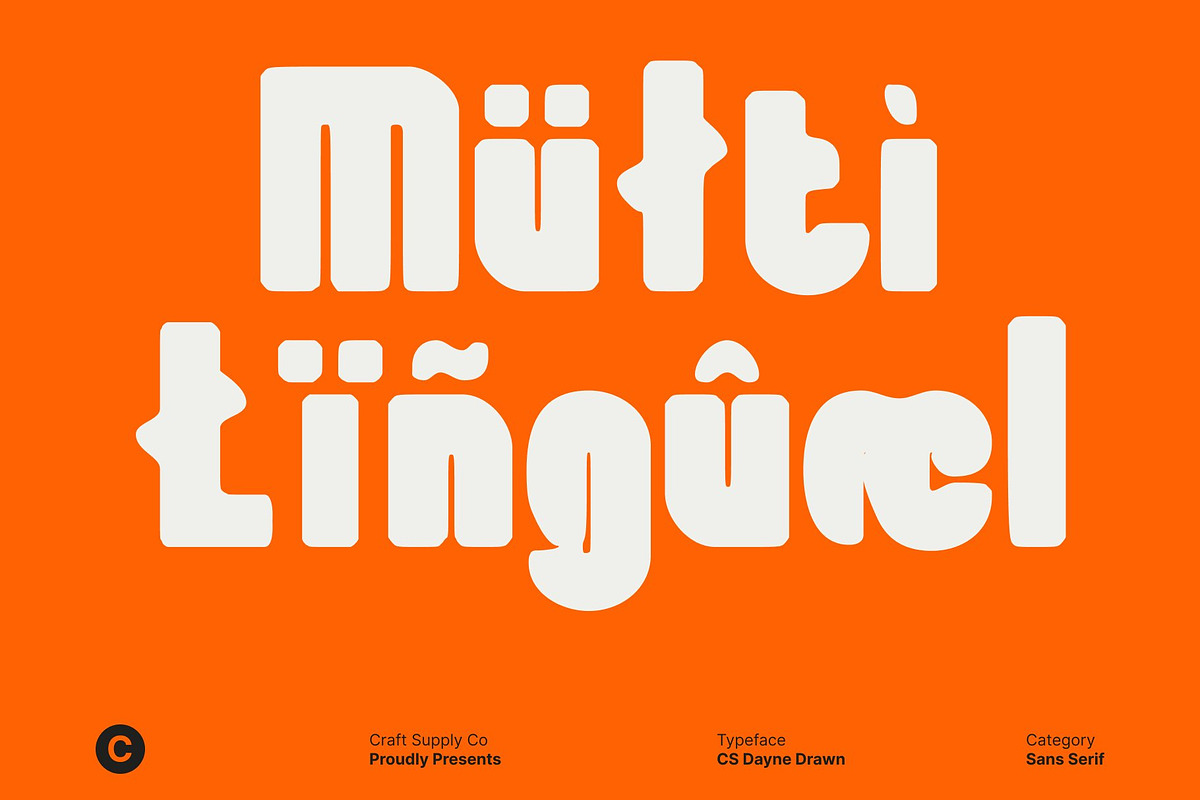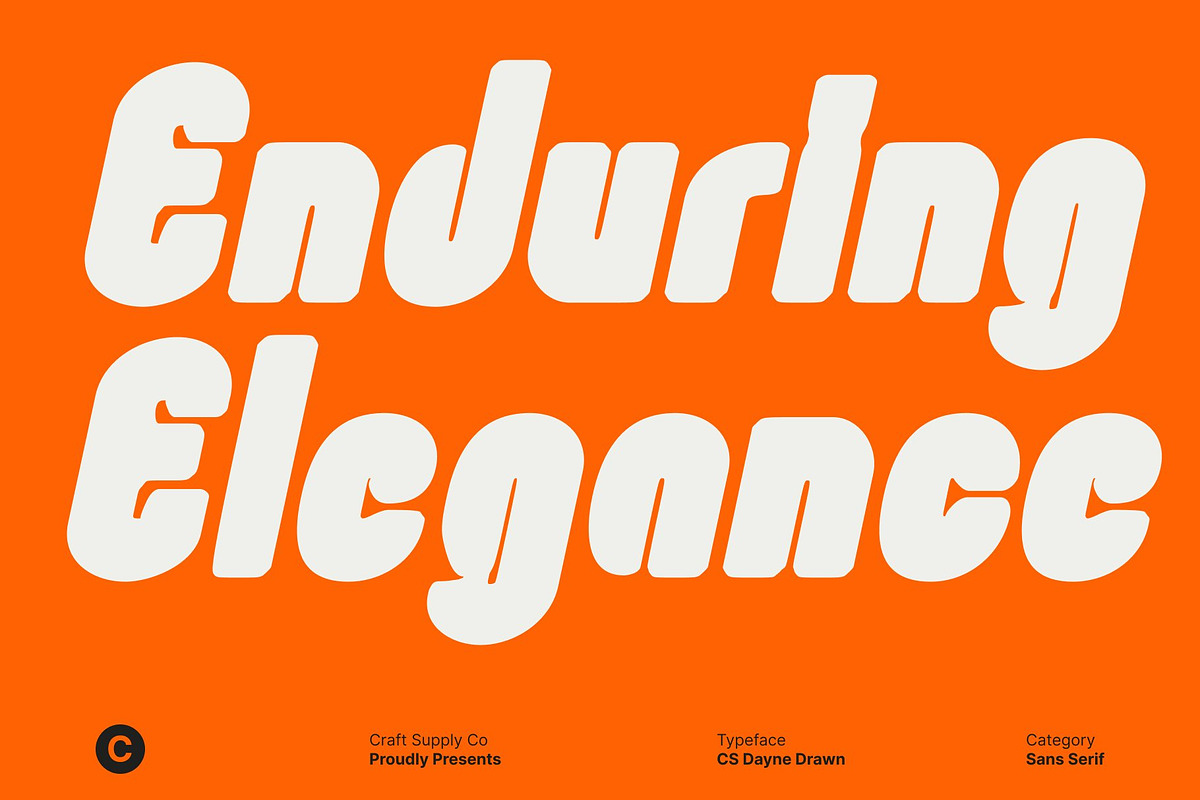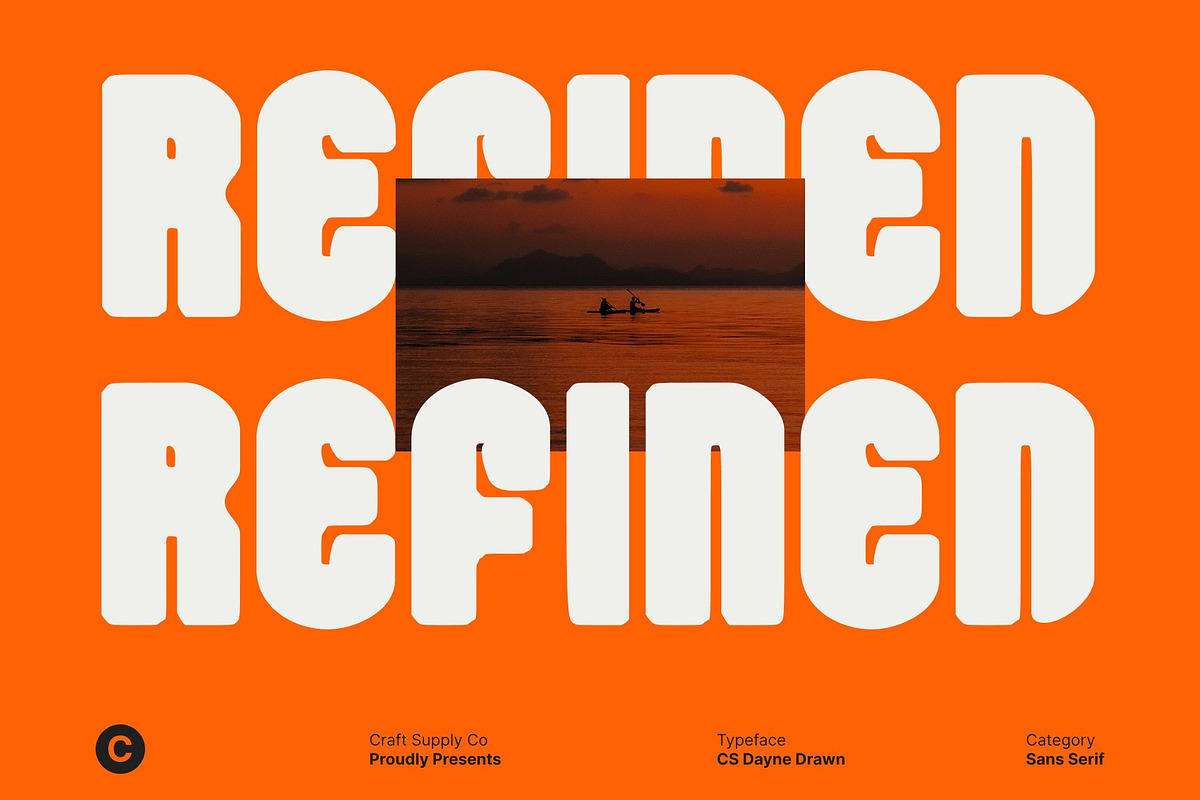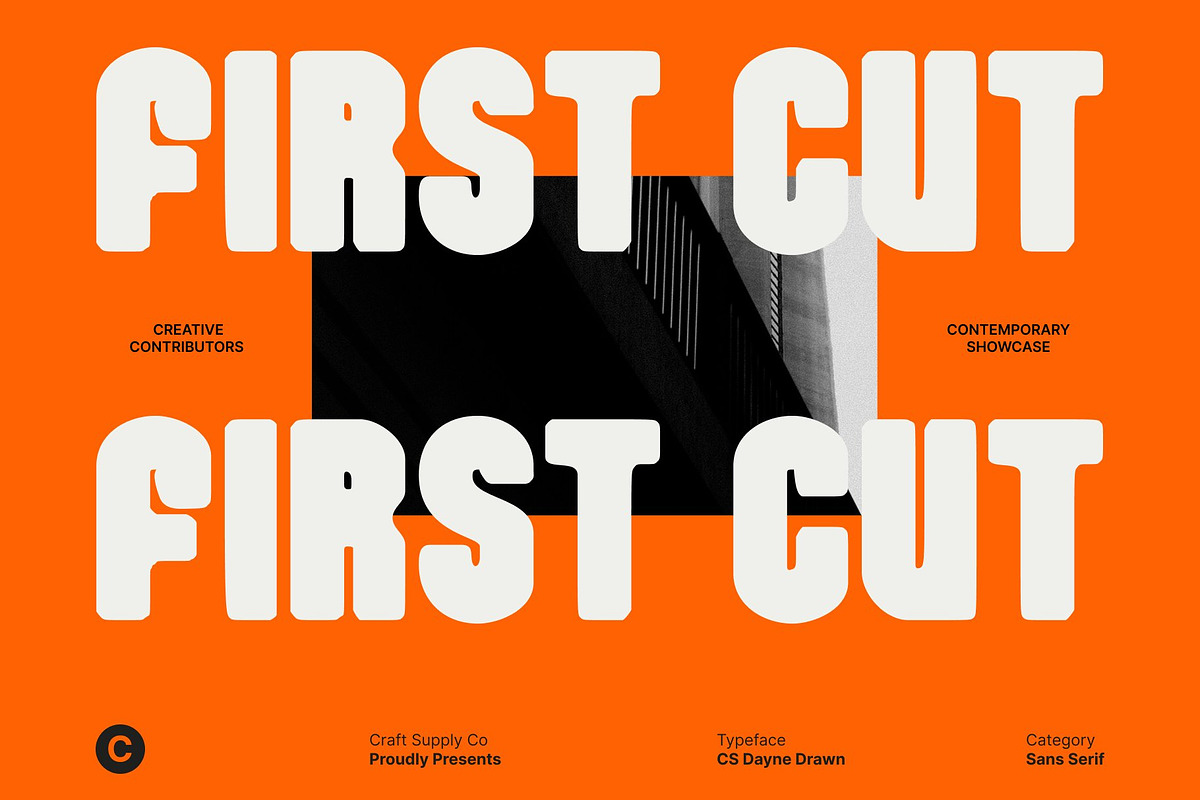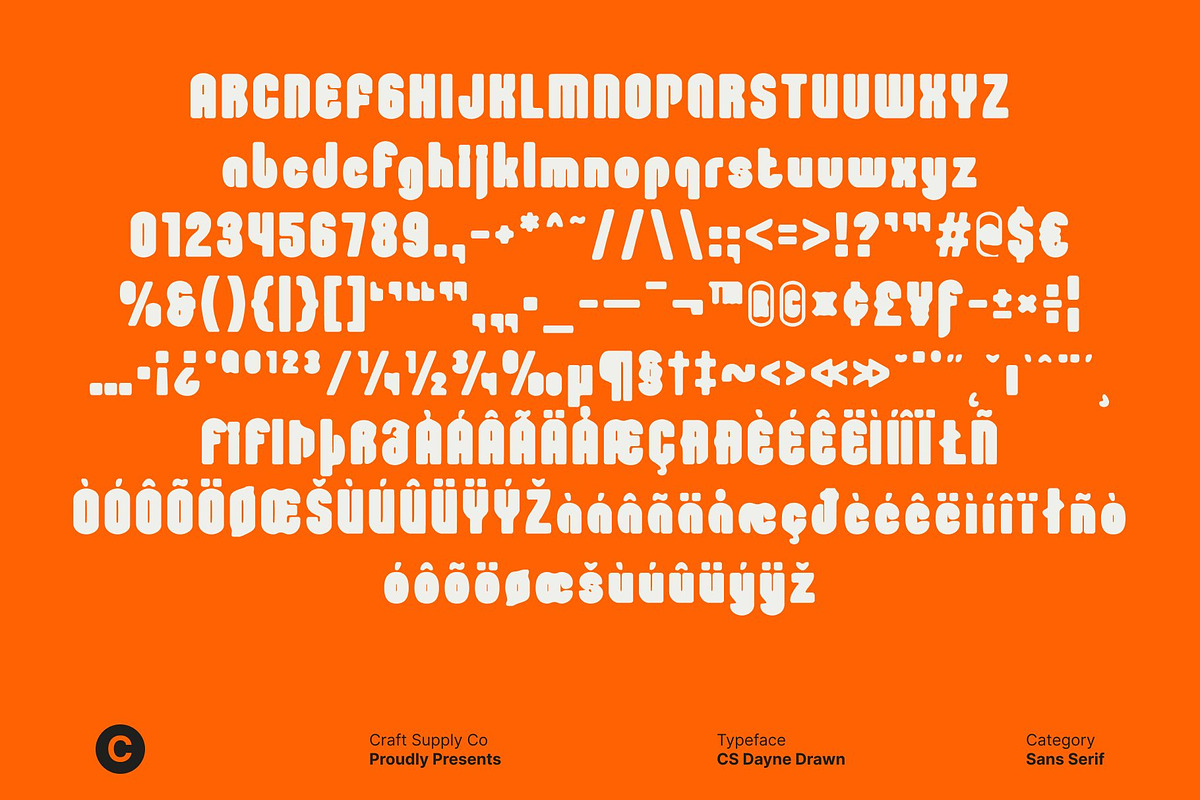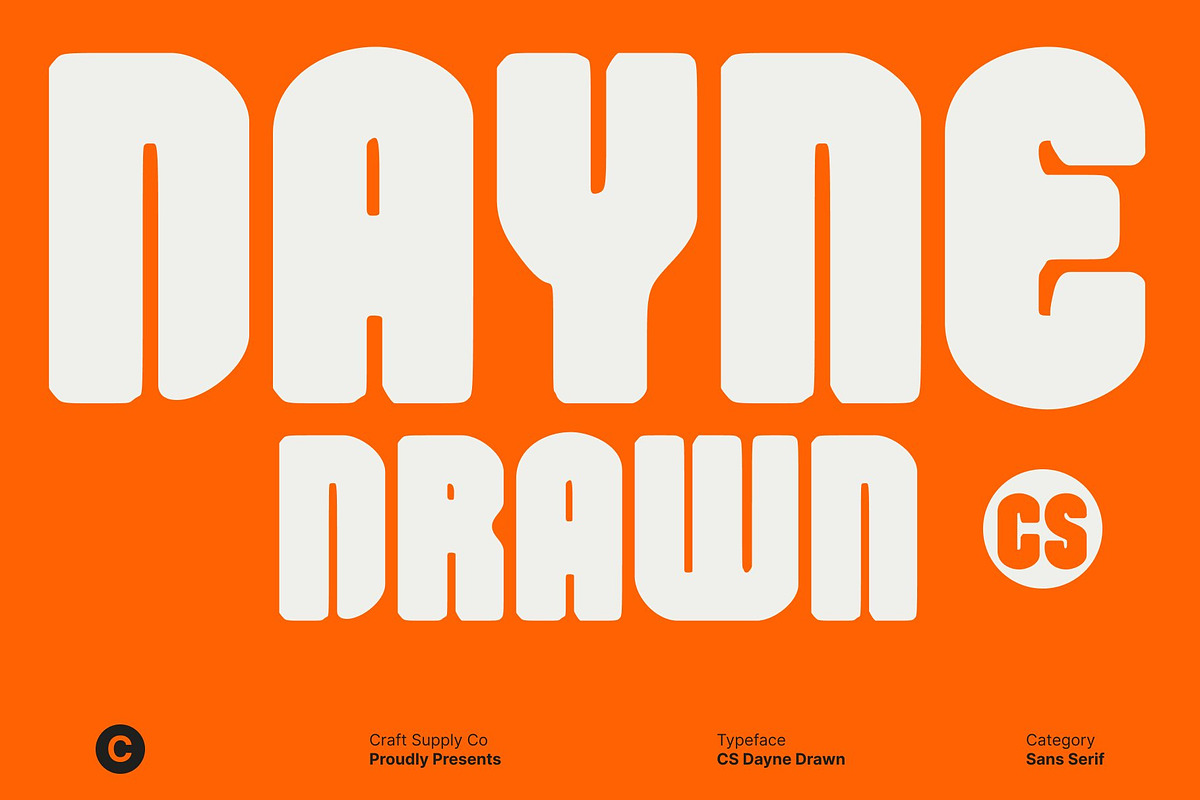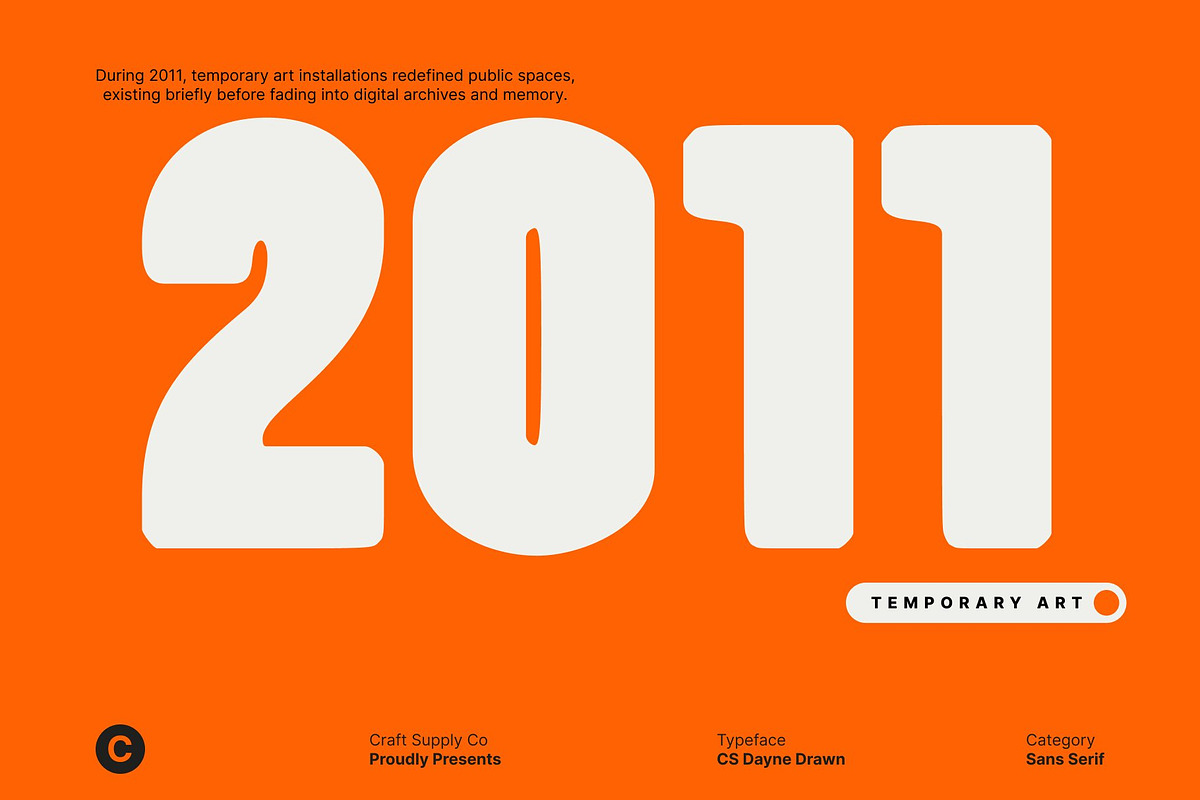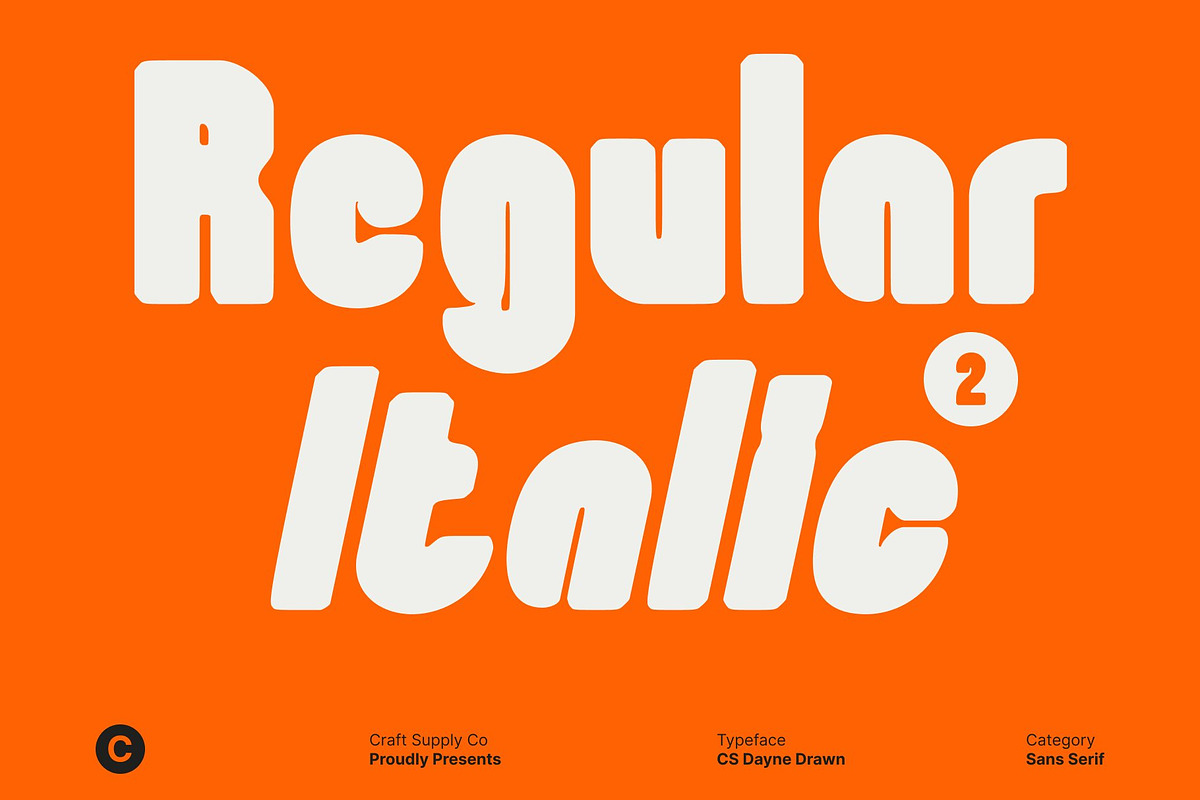
CS Dayne Drawn
CS Dayne Drawn – Bold Display Font with Hand-Drawn Texture
Strong Presence with Confident Character This is a bold display font built to make an immediate statement. Its powerful weight and solid structure give each letter a commanding presence, allowing text to stand out with confidence and authority. Designed for impact, this font projects strength and clarity, making it ideal for designs that need to capture attention at first glance.
Bold Construction for Maximum Visibility With thick strokes and well-balanced proportions, delivers excellent legibility while maintaining a striking visual identity. The bold forms ensure messages remain clear and assertive, even at large scales or from a distance. This makes the font highly effective for headlines, posters, signage, and branding that demand strong emphasis.
Hand-Drawn Texture with Artistic Depth Enhanced by a drawn effect, gains an artistic, textured appearance that adds depth and personality. Subtle imperfections and handcrafted details soften the bold structure, creating a more expressive and human feel. This texture brings visual interest and makes the font feel unique and dynamic.
Ideal for Impactful Branding and Creative Design This font is perfect for impactful branding, promotional materials, album covers, and bold editorial layouts. Its blend of confident strength and artistic texture makes it a versatile choice for modern designs that aim to communicate power while maintaining a creative, handcrafted edge.
- CS Dayne Drawn Regular
- CS Dayne Drawn Italic